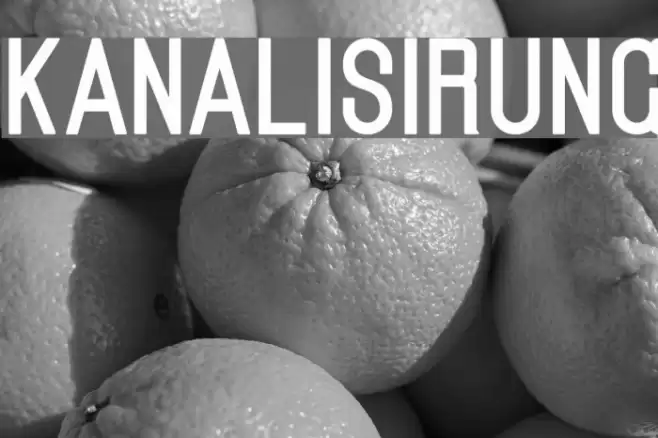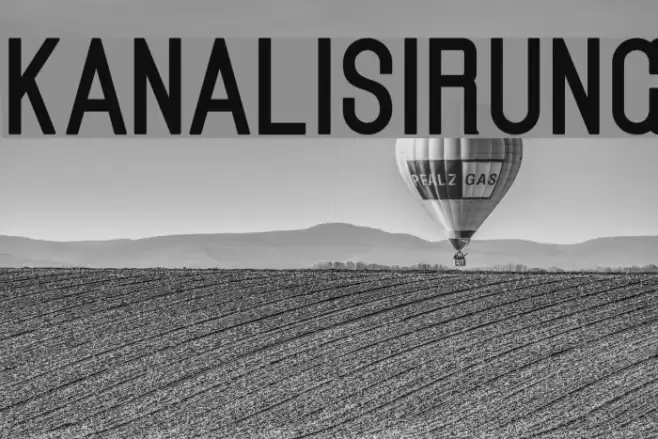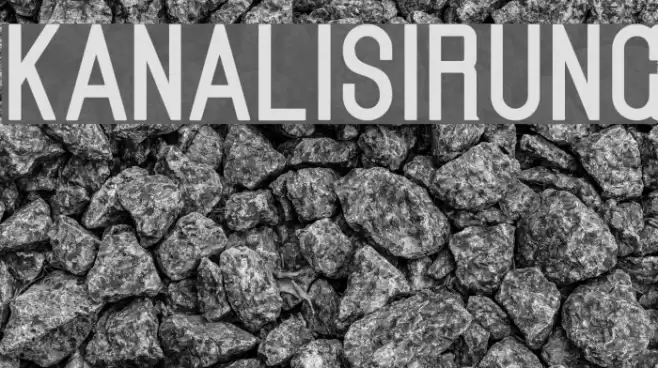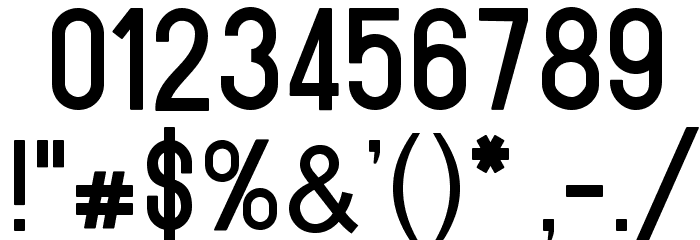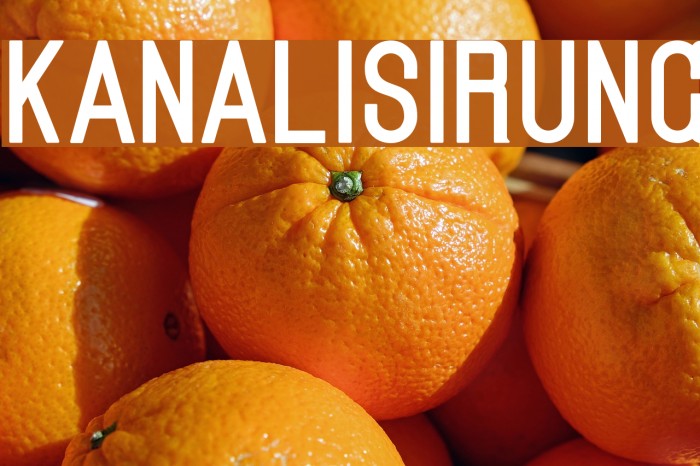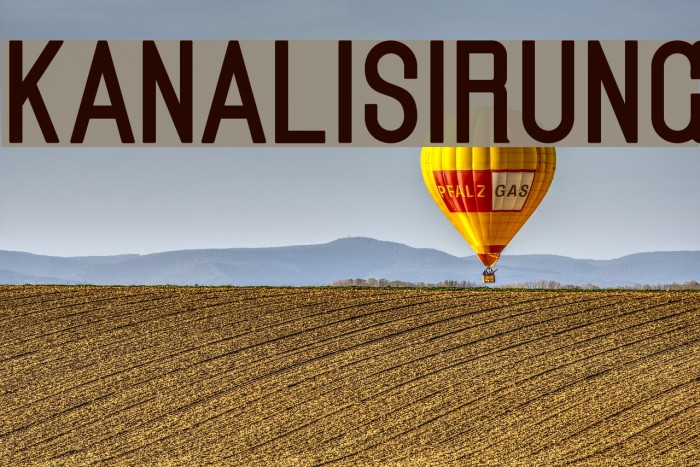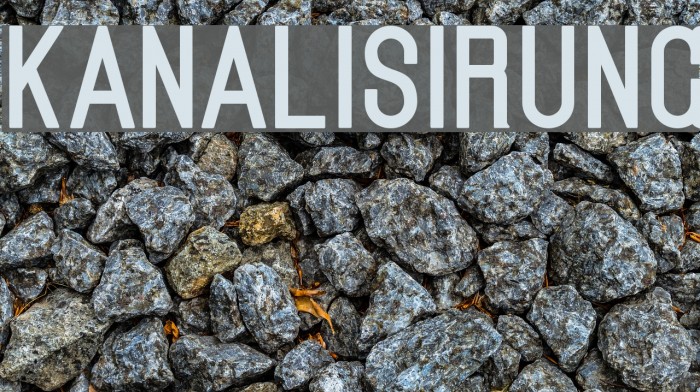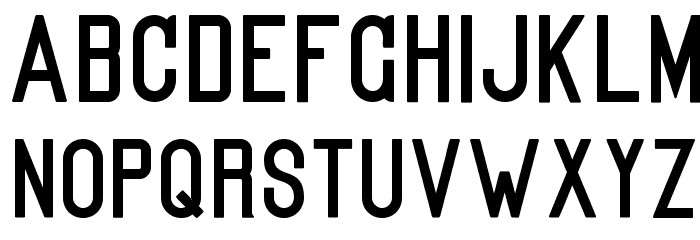
Kanalisirung Font
Kanalisirung Description
This font features a bold, geometric sans-serif style with clean lines and a modern aesthetic. The characters are uniform in width, providing a balanced and structured appearance. The uppercase and lowercase letters maintain a consistent height, contributing to a cohesive look. The numerals are clear and legible, matching the overall design of the alphabet. Special characters are included, enhancing the font's versatility. The design is straightforward yet impactful, making it suitable for a variety of applications where clarity and modernity are desired.
A bold, geometric sans-serif font with a modern and clean design from Uncategorized fonts.
- Proposed Projects: Ideal for branding, advertising, headlines, and digital interfaces where a modern and bold statement is needed.
- Use Case: Headlines, Logos, Digital interfaces